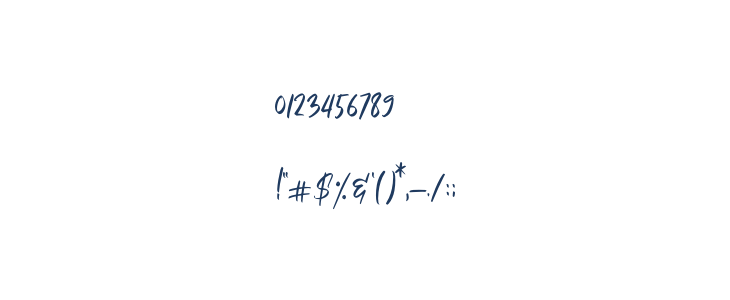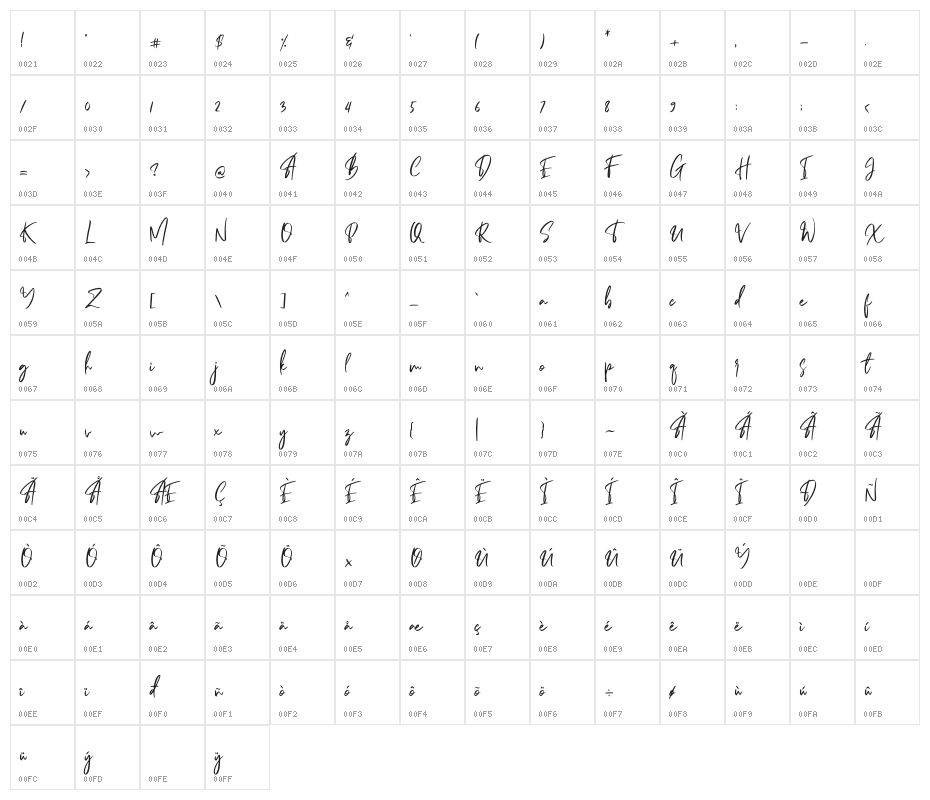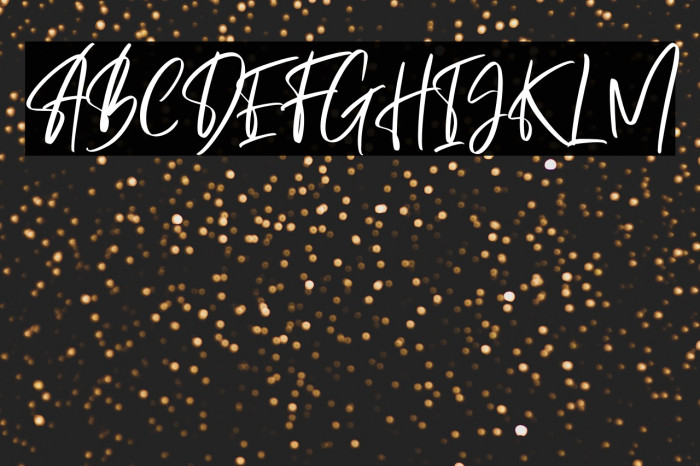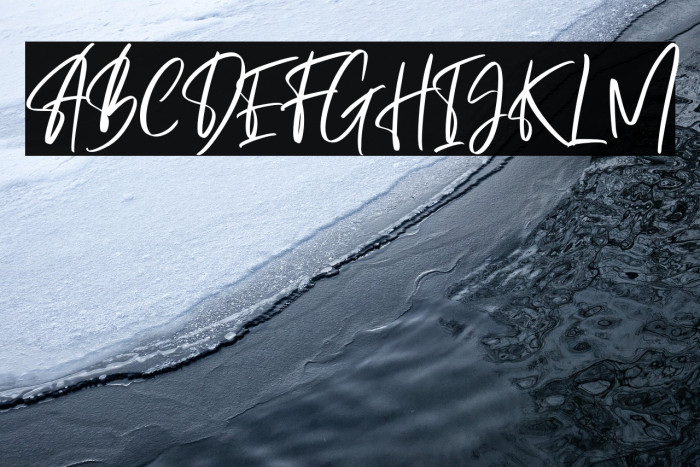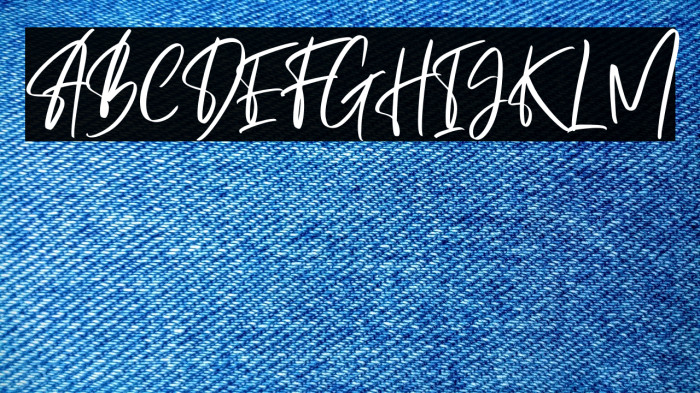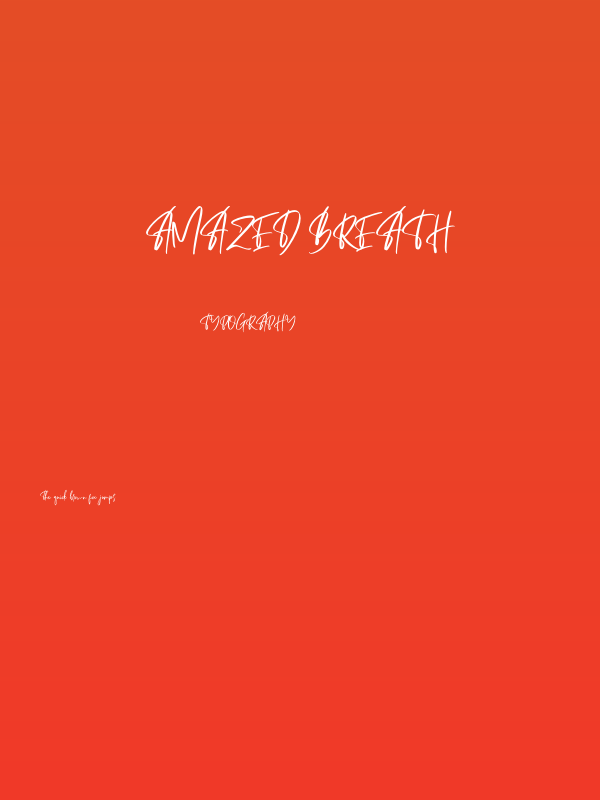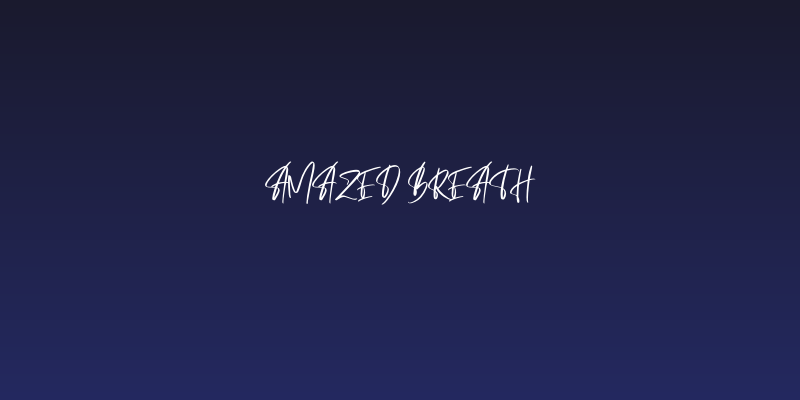
Amazed Breath Font
Amazed Breath Description
This font exudes a lively and expressive character, with its fluid and dynamic strokes that mimic the natural flow of handwriting. The uppercase letters are bold and slightly exaggerated, giving a sense of movement and energy. The lowercase letters maintain a consistent style, with smooth curves and a slightly slanted orientation, enhancing the handwritten feel. The numerals and special characters are crafted with the same attention to detail, ensuring uniformity across the font. This font's playful yet elegant style makes it suitable for a variety of creative projects.
| Proposed Projects | Ideal for invitations, greeting cards, branding, and social media graphics. |